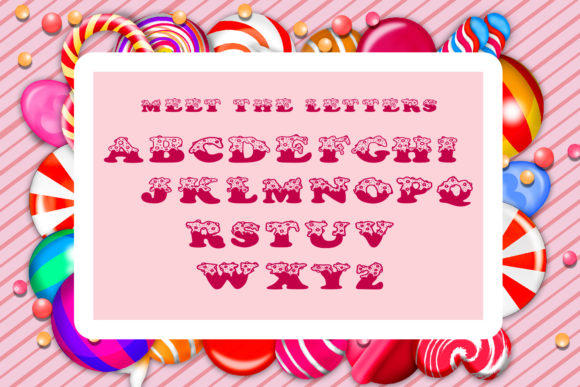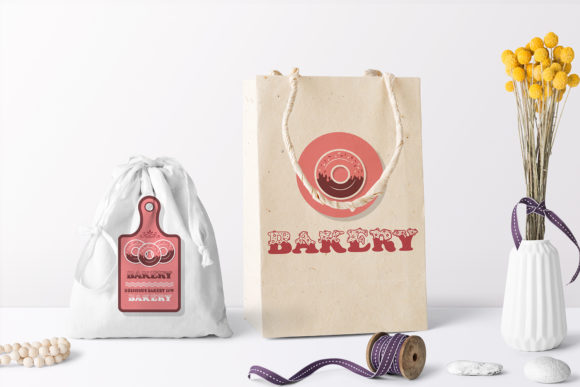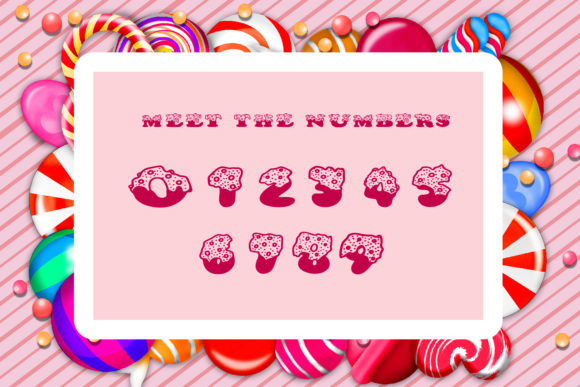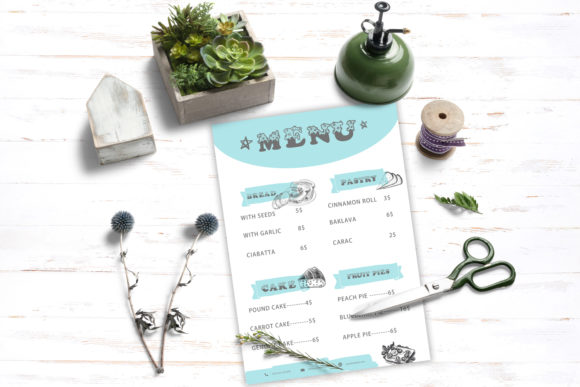
The Sweet Taste of Creativity: Introducing the Donut Font
Have you ever found yourself in the midst of a creative block, staring blankly at your screen, waiting for that spark of inspiration to strike? It’s a moment we’ve all been there, and it’s often the most mundane things that end up sparking the most brilliant ideas. For me, it was a late-night trip to the local donut shop that ignited the spark for this article – the Donut Font, a quirky and playful display font that’s sure to bring a smile to your face.
Designed with a sweet theme in mind, the Donut Font is perfect for making original and outstanding designs that stand out from the crowd. With its unique charm and whimsical feel, this font is a valuable asset for any designer looking to add a touch of personality to their work.
Donut Font Key Features
- Font Family: Donut Font is a unique, hand-drawn font family designed to resemble a donut. It includes multiple styles and weights.
- Unique Characteristics: Donut Font features a distinctive, playful design with rounded edges, making it perfect for adding a touch of whimsy to your designs.
Donut Font Review
The Donut Font is a visually striking font that catches the eye with its bold and colorful design. It’s perfect for creating playful and whimsical designs that evoke a sense of fun and adventure. ✨ I love how the font’s unique shape and style can be used to add a touch of personality to any project.
- Customizable color palette allows for endless design possibilities
- Font’s bold design makes it perfect for headings and titles
- Great for creating eye-catching social media graphics and ads
However, there are a few limitations to consider. ⚠️ The font’s uniqueness can sometimes make it difficult to read, especially in large blocks of text. Additionally, the font’s design may not be suitable for all types of projects, such as formal documents or professional presentations.
Overall, the Donut Font is a fun and creative addition to any designer’s toolkit. While it may not be the best choice for every project, it’s perfect for creating playful and engaging designs that stand out from the crowd.
The Donut Font is perfect for:
- Candy-themed designs
- Food-related branding
- Whimsical illustrations
- Birthday party invitations